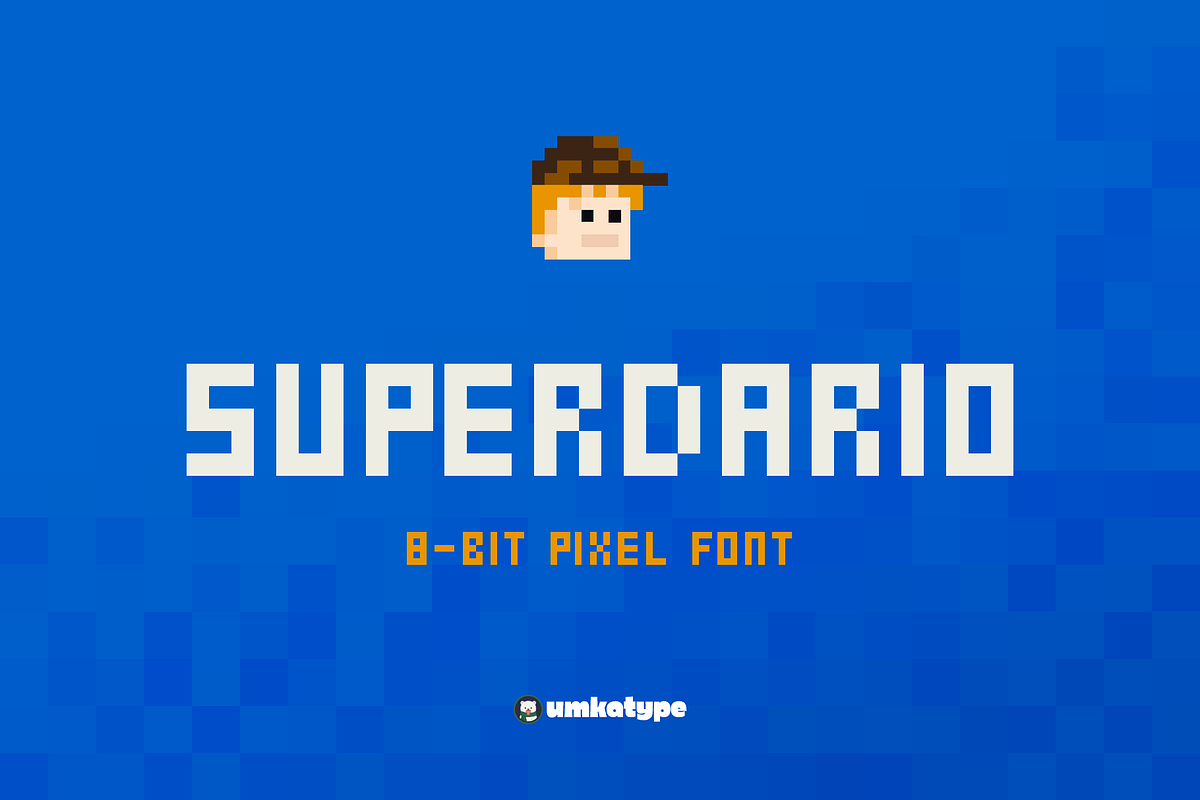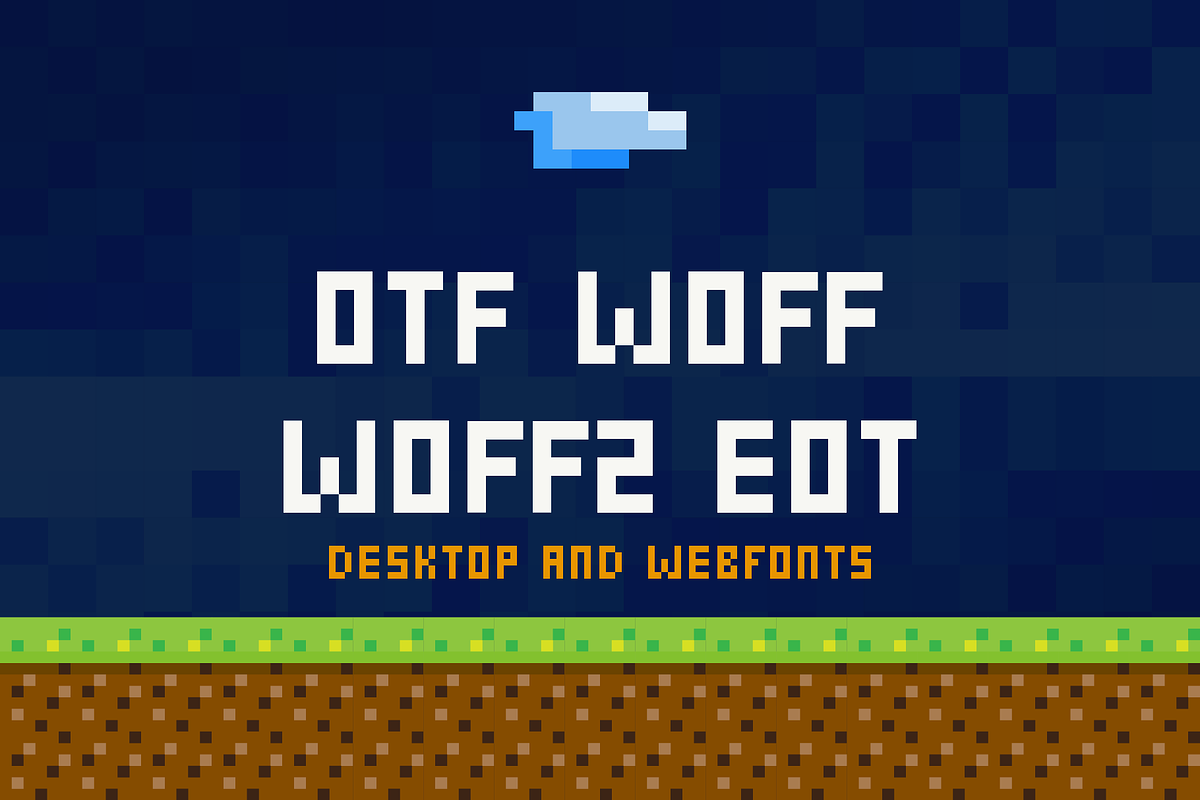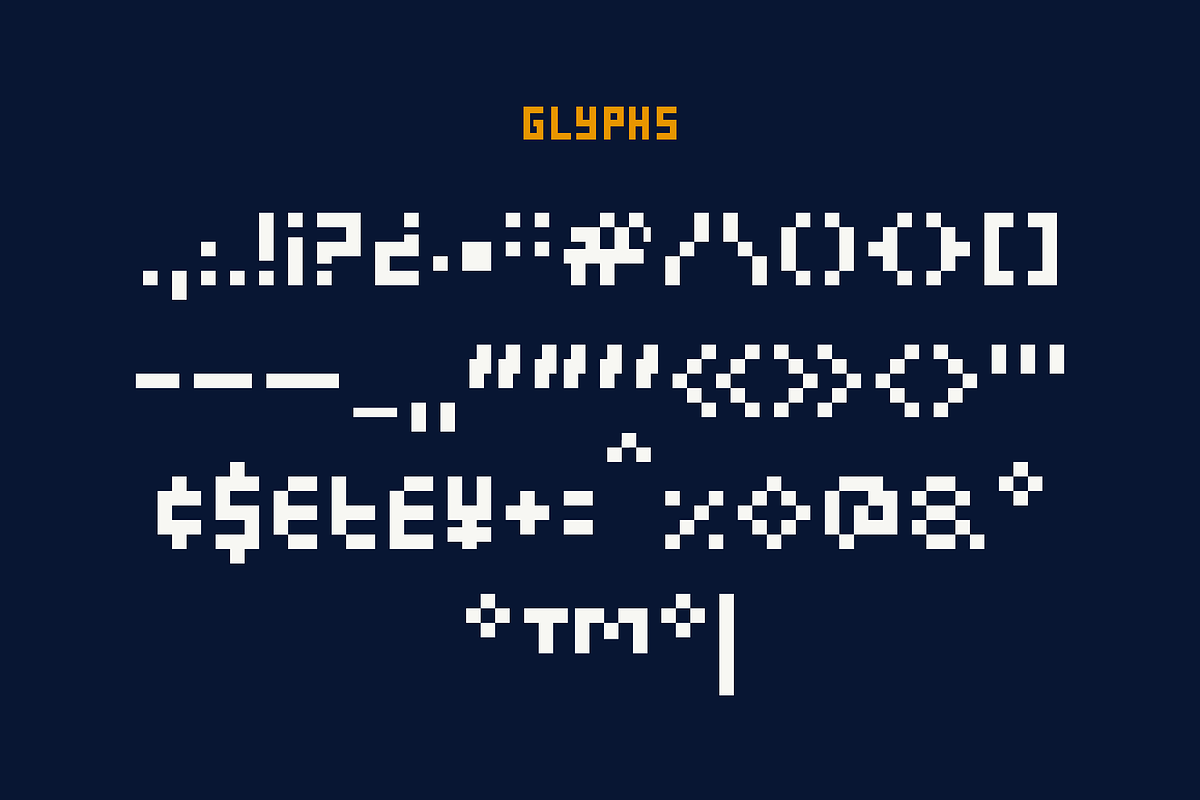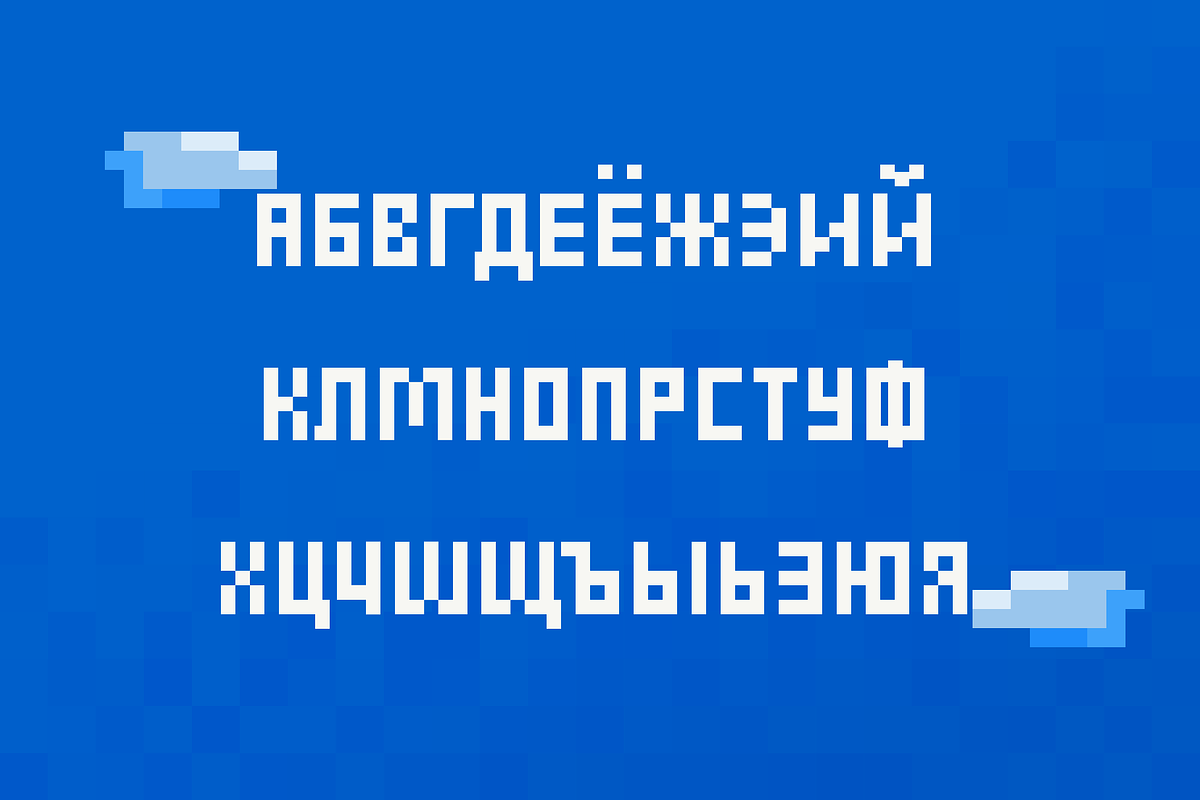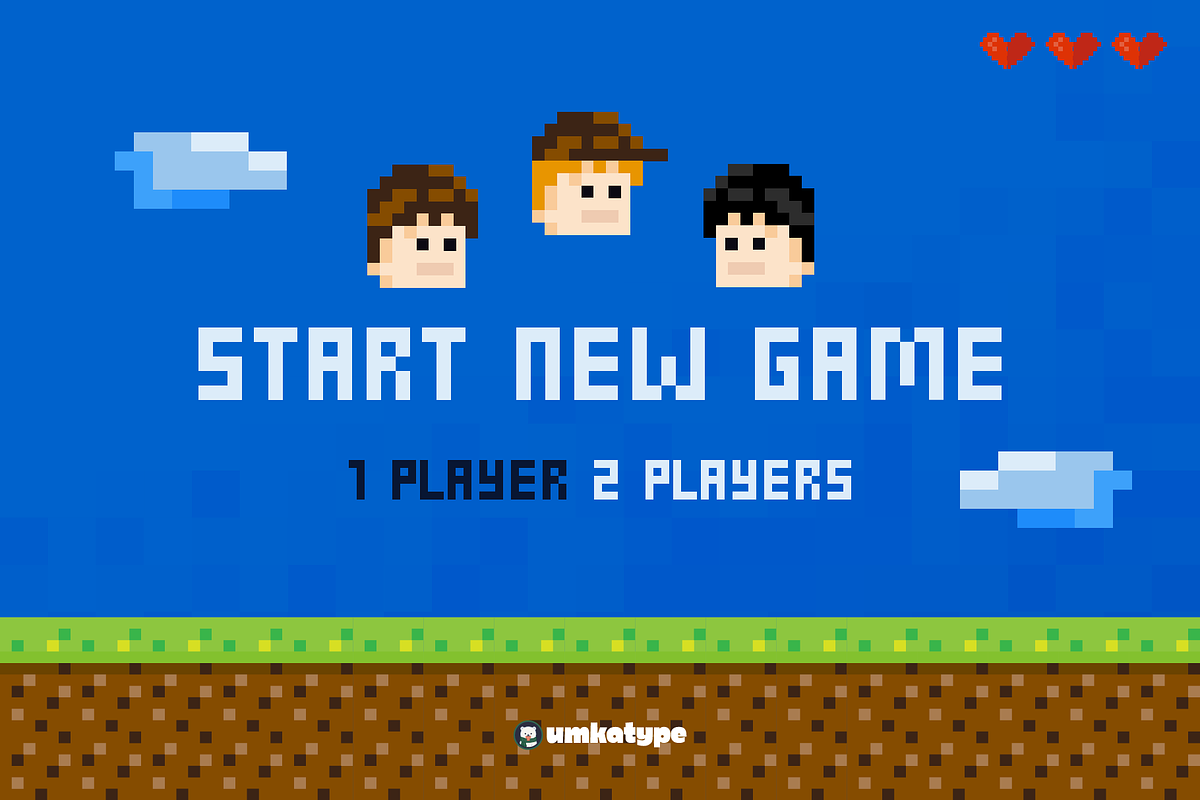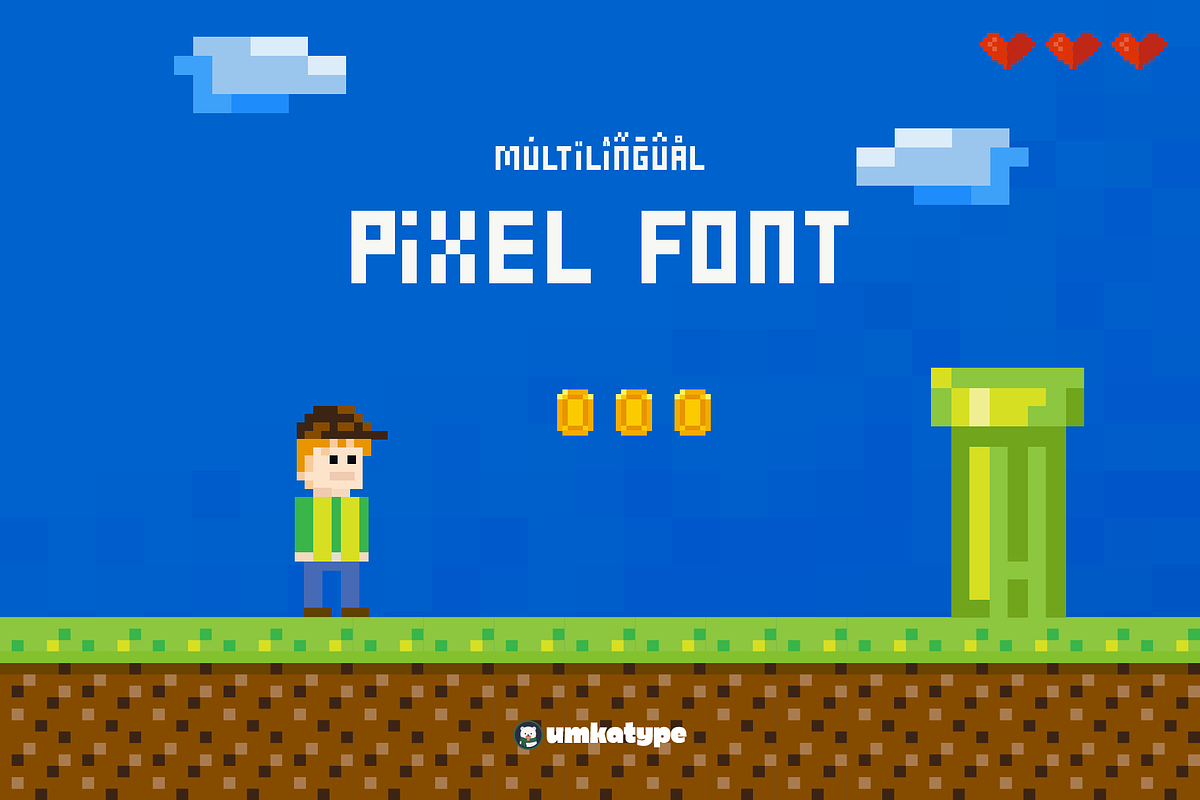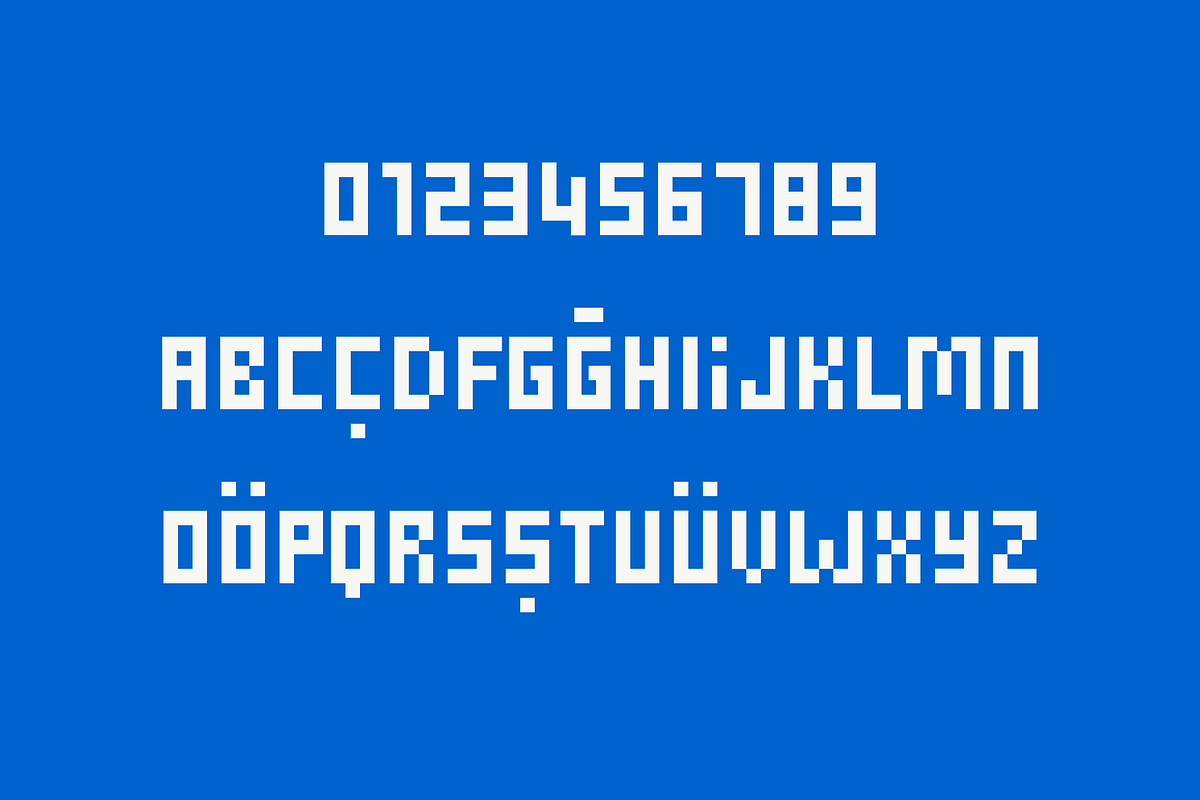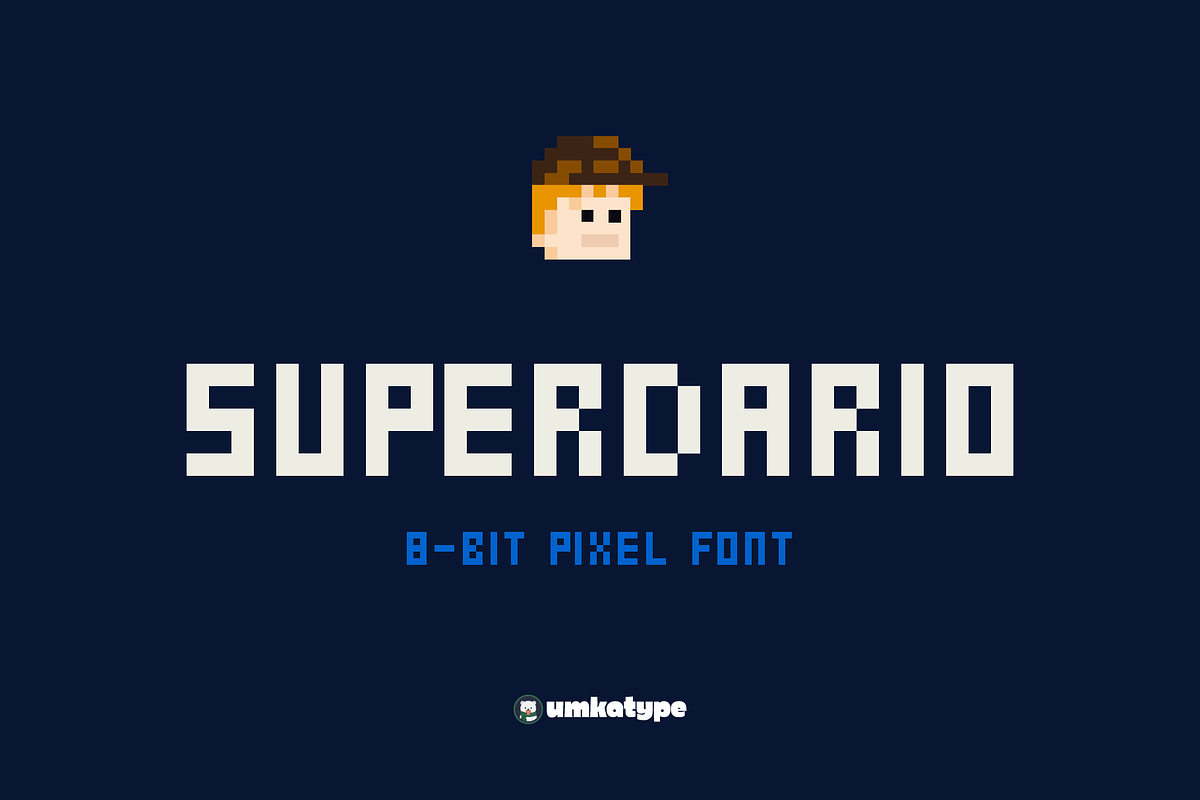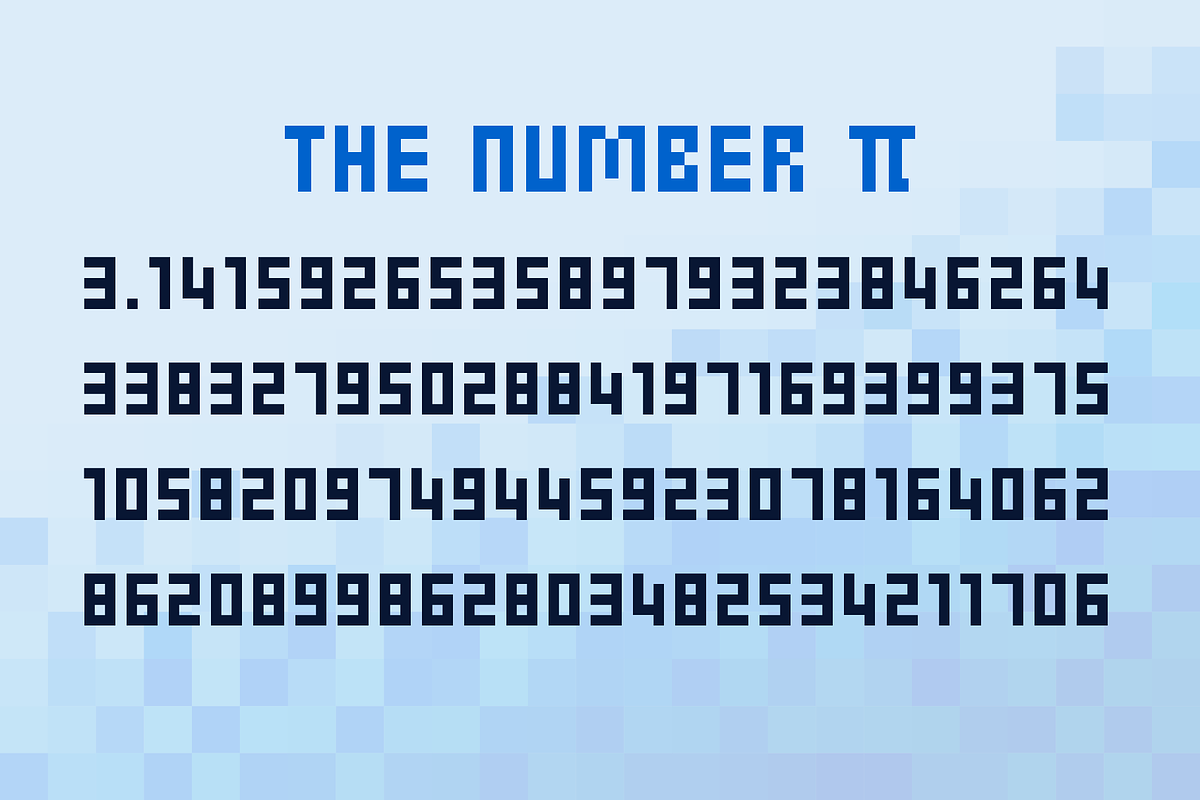
SuperDario Pixel Game Font
SuperDario - A Pixel Font
- SuperDario is a carefully crafted fun font.
- Multilingual: It has Extended Latin and Extended Cyrillic letters.
SuperDario created for games, web design, branding and social media works.
Language support:
Afrikaans • Albanian • Asu • Basque • Belarusian • Bemba • Bena • Breton • Bulgarian • Catalan • Cebuano • Chiga • Cornish • Corsican • Danish • Dutch • English • Erzya • Faroese • Filipino • French • Friulian • Galician • German • Gusii • Icelandic • Ido • Indonesian • Interlingua • Irish • Italian • Javanese • Jju • Kabuverdianu • Kalaallisut • Kalenjin • Kinyarwanda • Kurdish • Lojban • Low German • Luo • Luxembourgish • Luyia • Macedonian • Machame • Makhuwa-Meetto • Makonde • Malagasy • Malay • Manx • Mohawk • Morisyen • North Ndebele • Northern Sotho • Norwegian Bokmål • Norwegian Nynorsk • Nyankole • Occitan • Oromo • Portuguese • Quechua • Romansh • Rombo • Rundi • Russian • Rwa • Samburu • Sango • Sangu • Sardinian • Scottish Gaelic • Sena • Serbian • Shambala • Shona • Soga • Somali • South Ndebele • Southern Sotho • Spanish • Sundanese • Swahili • Swati • Swedish • Swiss German • Taita • Taroko • Teso • Tsonga • Tswana • Ukrainian • Vunjo • Walloon • Western Frisian • Xhosa • Zulu